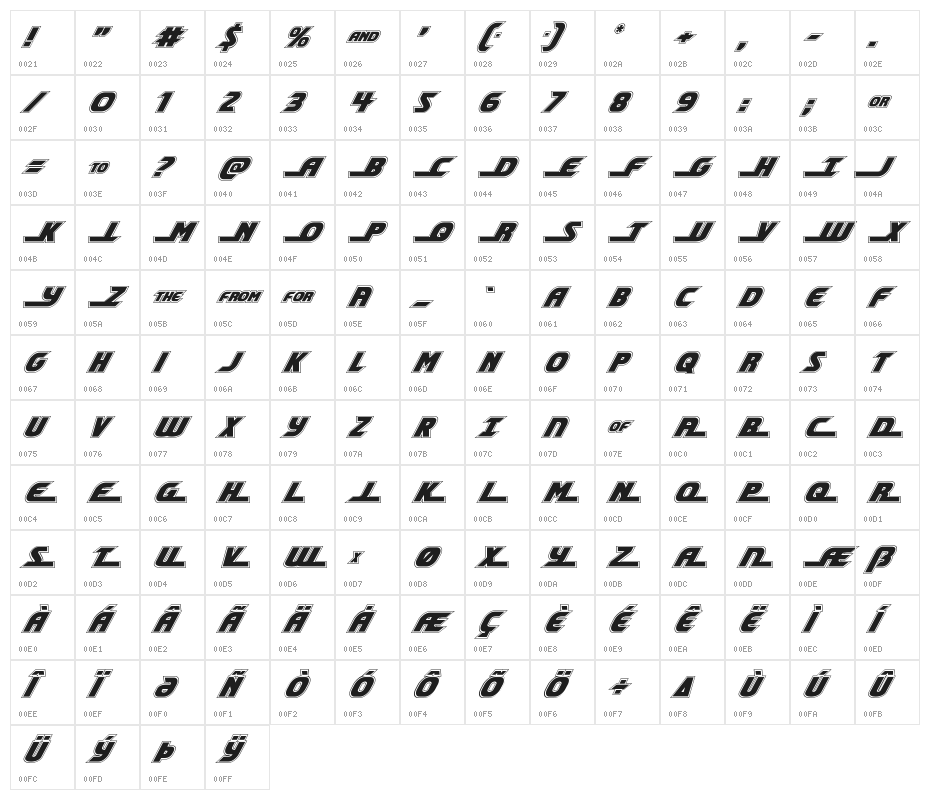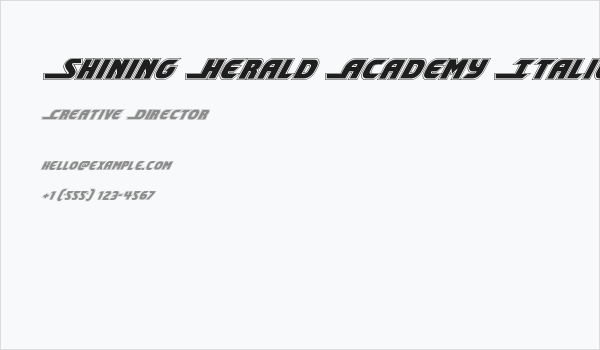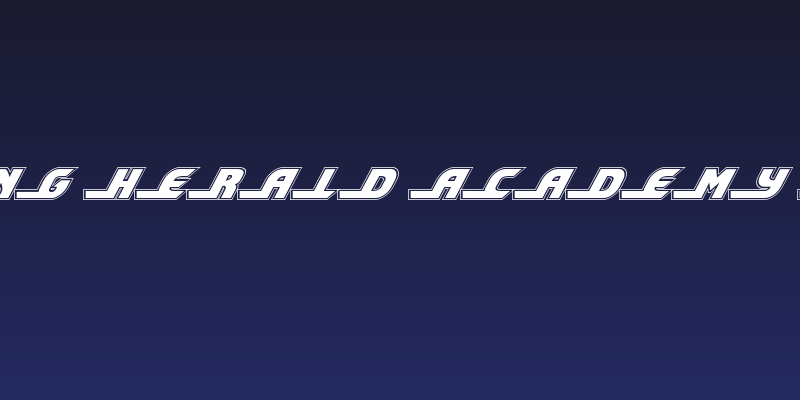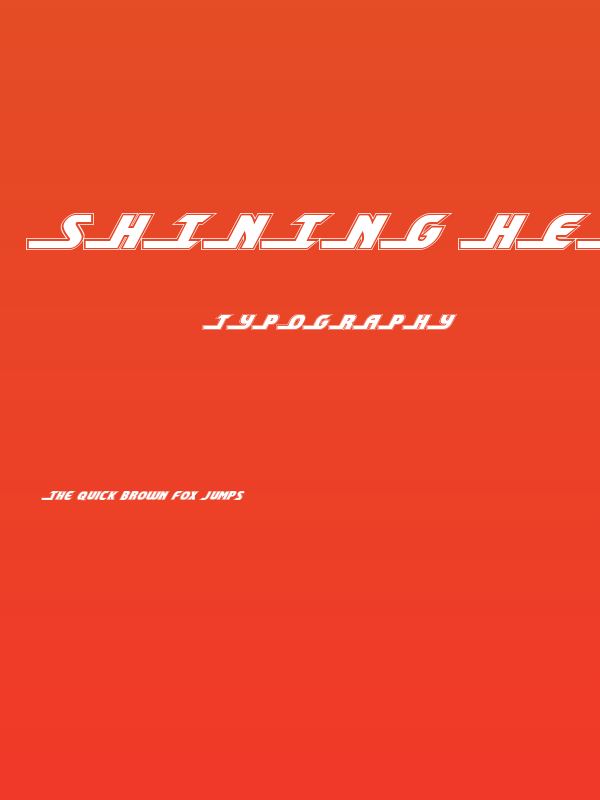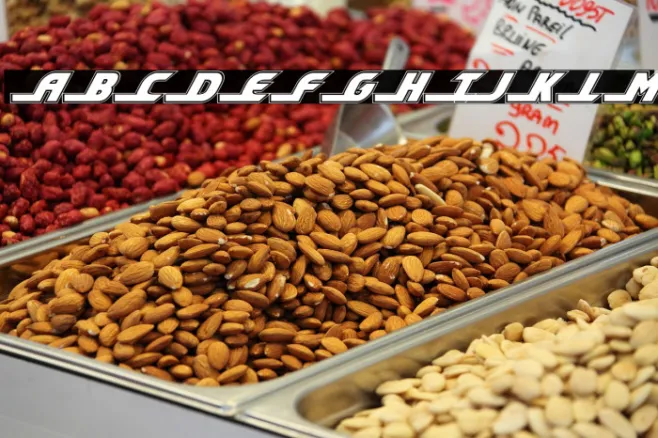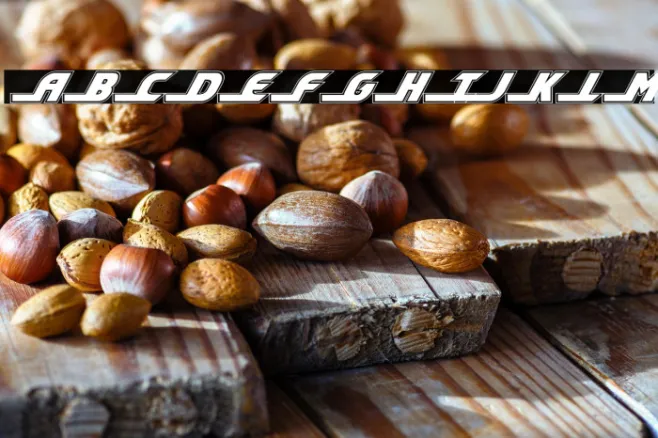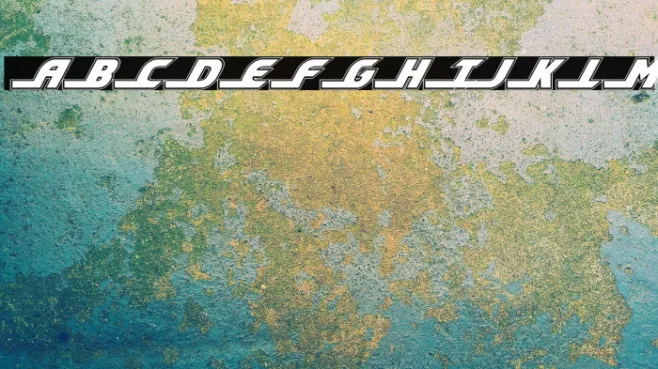
Shining Herald Academy Italic Font
Shining Herald Academy Italic Description
This font features a bold, italicized style with a strong, dynamic presence. The characters are designed with a distinct slant, adding a sense of motion and energy. The bold strokes are complemented by a high contrast between thick and thin lines, giving the font a striking appearance. The uppercase and lowercase letters maintain a consistent style, with angular edges and a slightly condensed width. The numerals and special characters follow the same bold, italicized design, ensuring uniformity across all glyphs. This font's unique style makes it suitable for attention-grabbing headlines and impactful design projects.